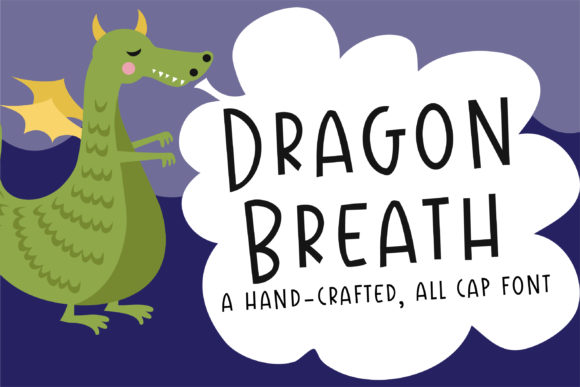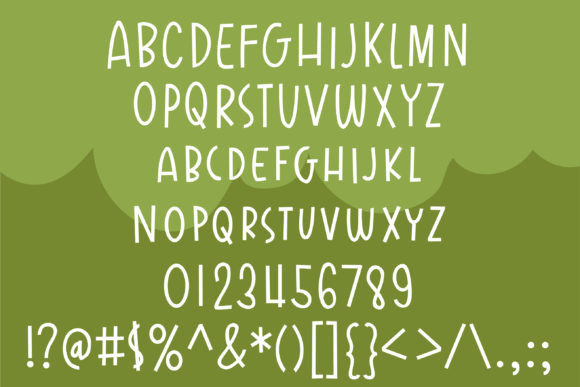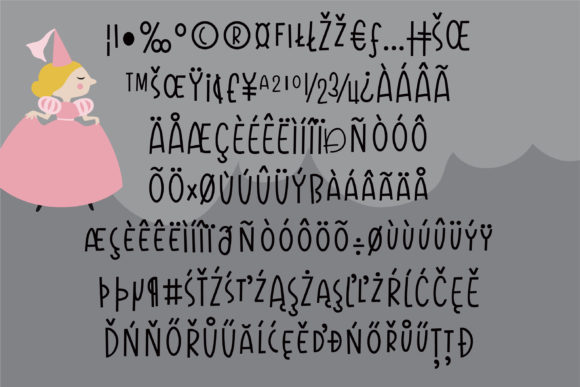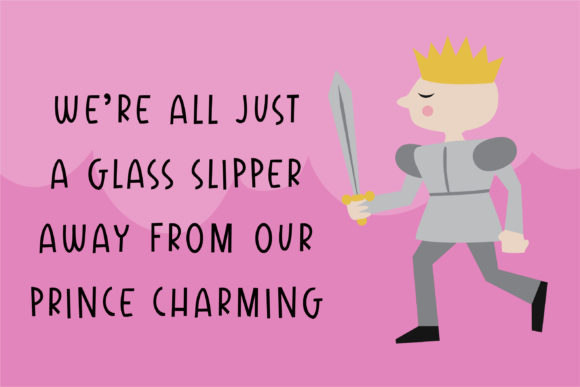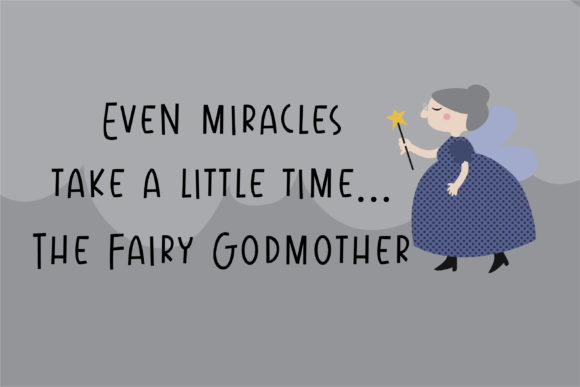
Dragon Breath Font
About Dragon Breath Font
Dragon Breath is a playful handwritten font with an adventurous feel. It will add a whimsical twist to any design project.